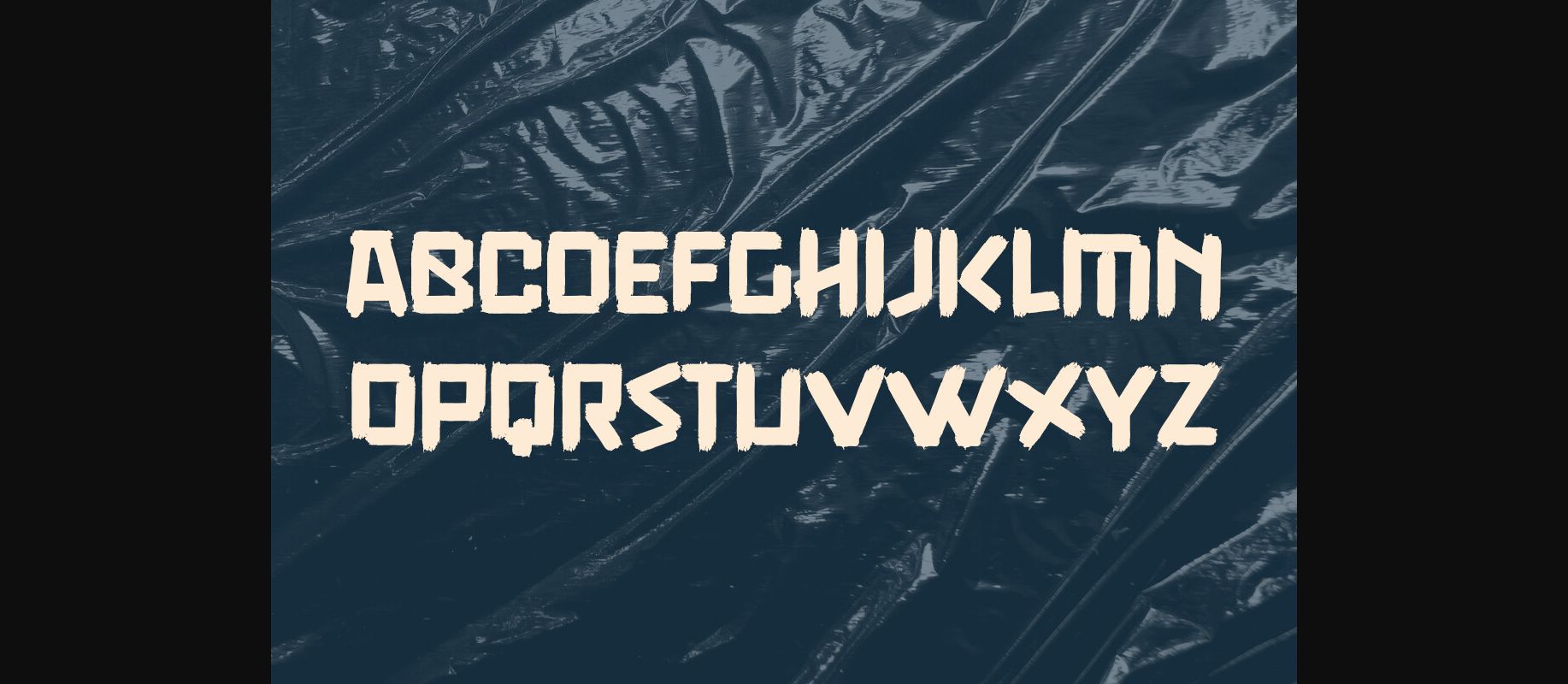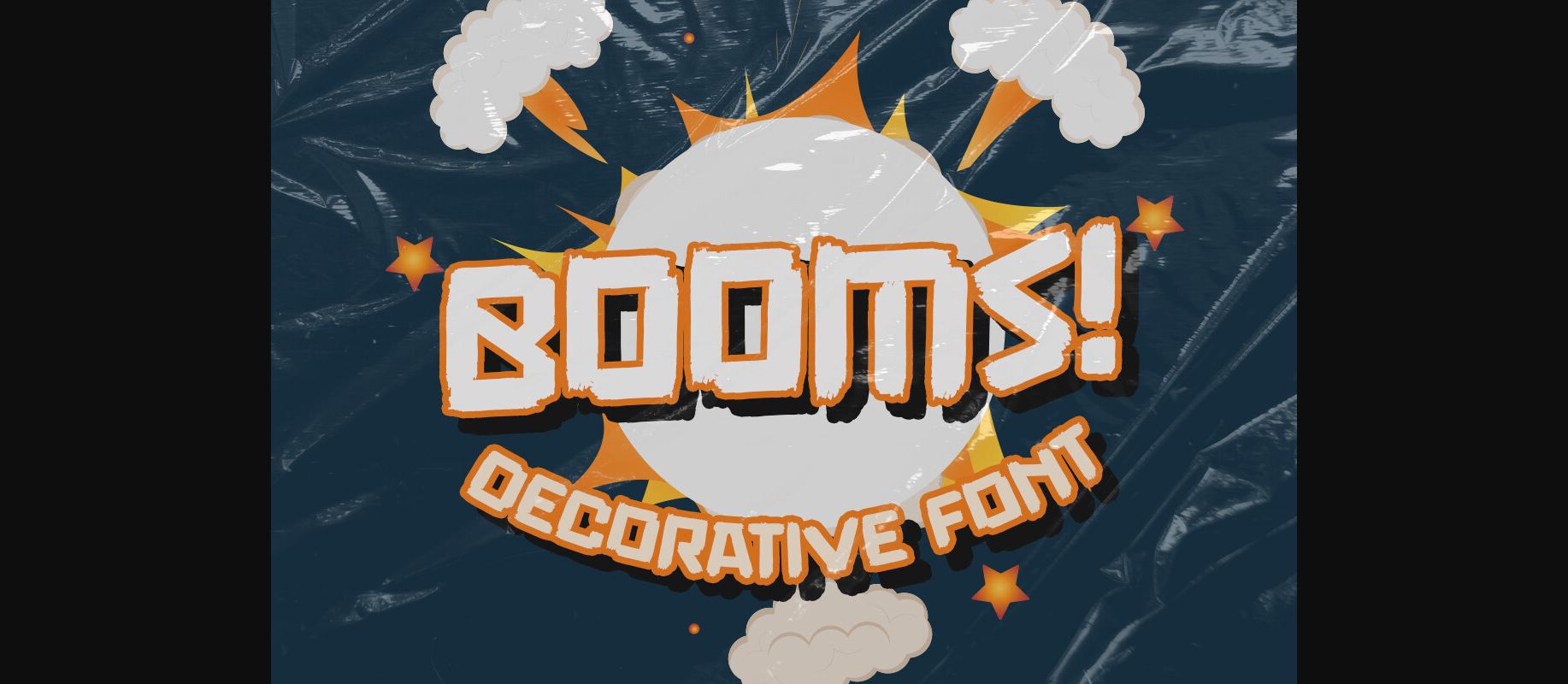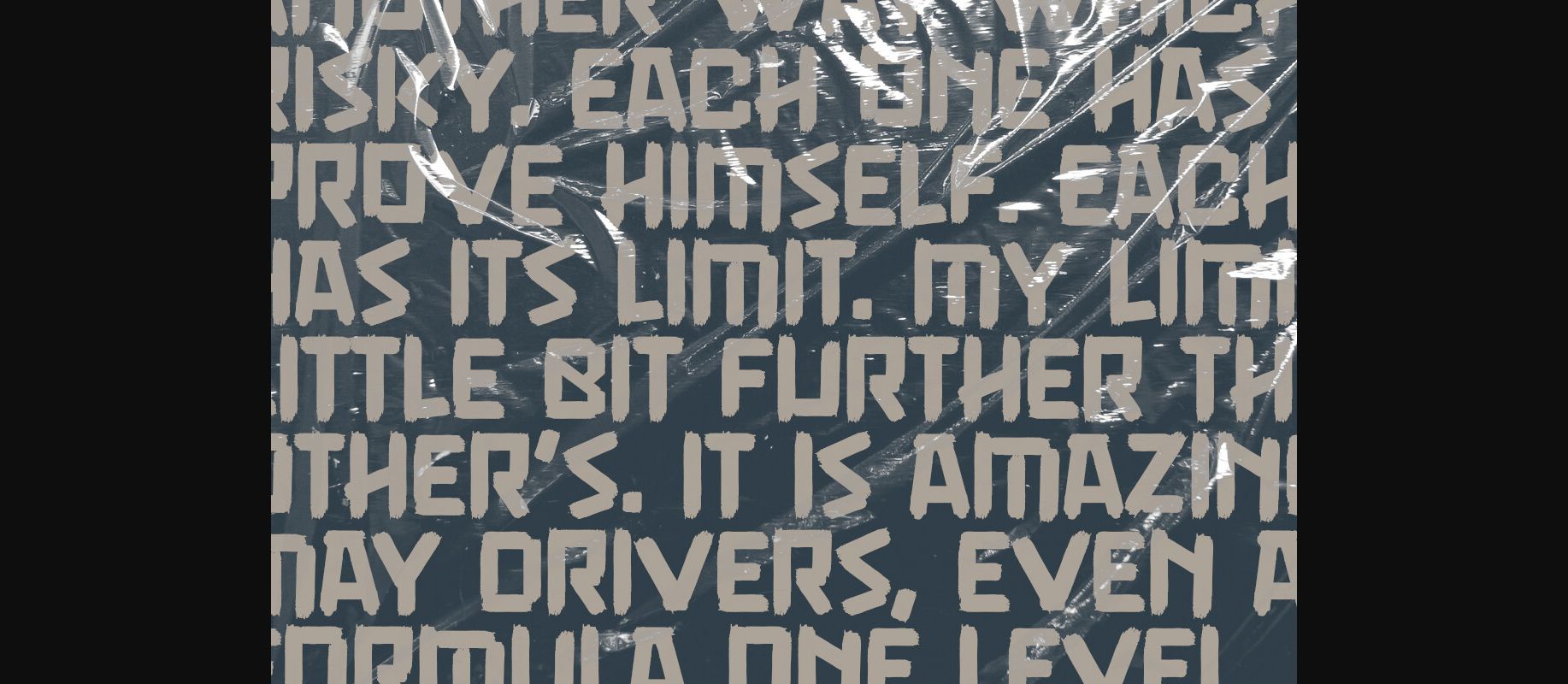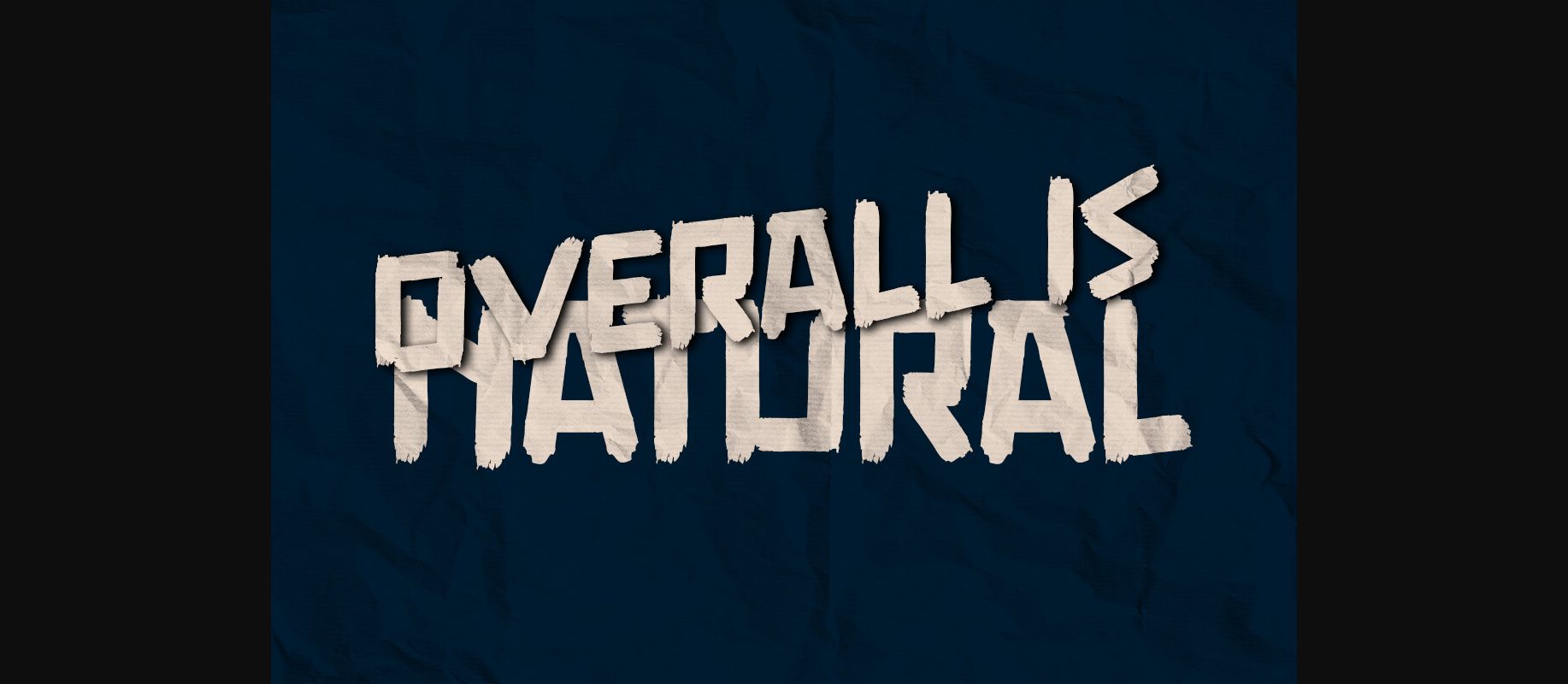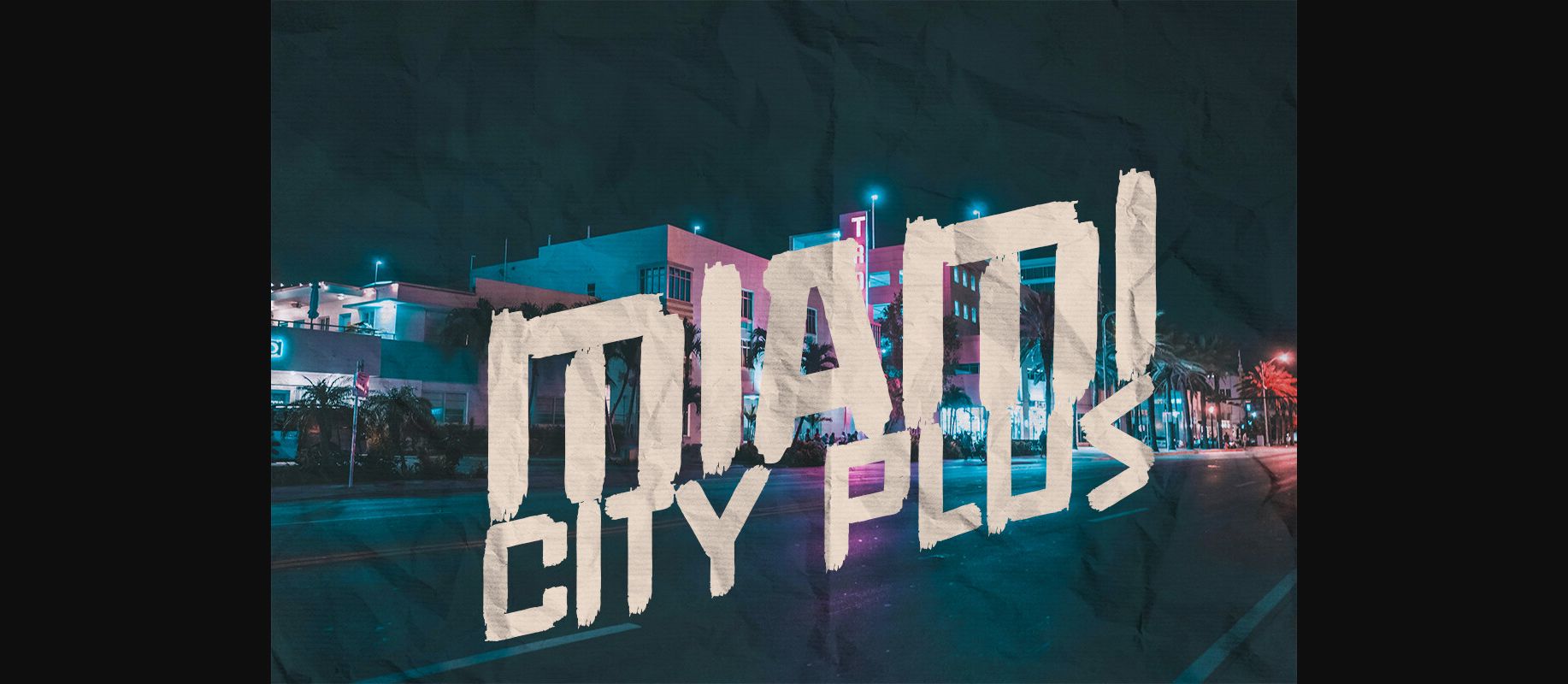
Booms Font
About Booms Font
Booms is a cute and charming decorative font. Whimsical and a bit quirky, this font will brighten up each of your designs. Add it confidently to your projects, and you will love the results.